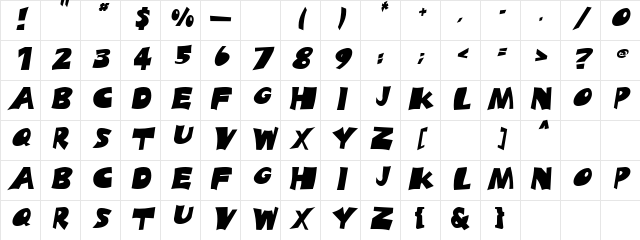
Lactam is a composed and adaptable typeface that performs quietly and consistently across a wide range of design contexts. The slanted form adds forward momentum and visual energy.